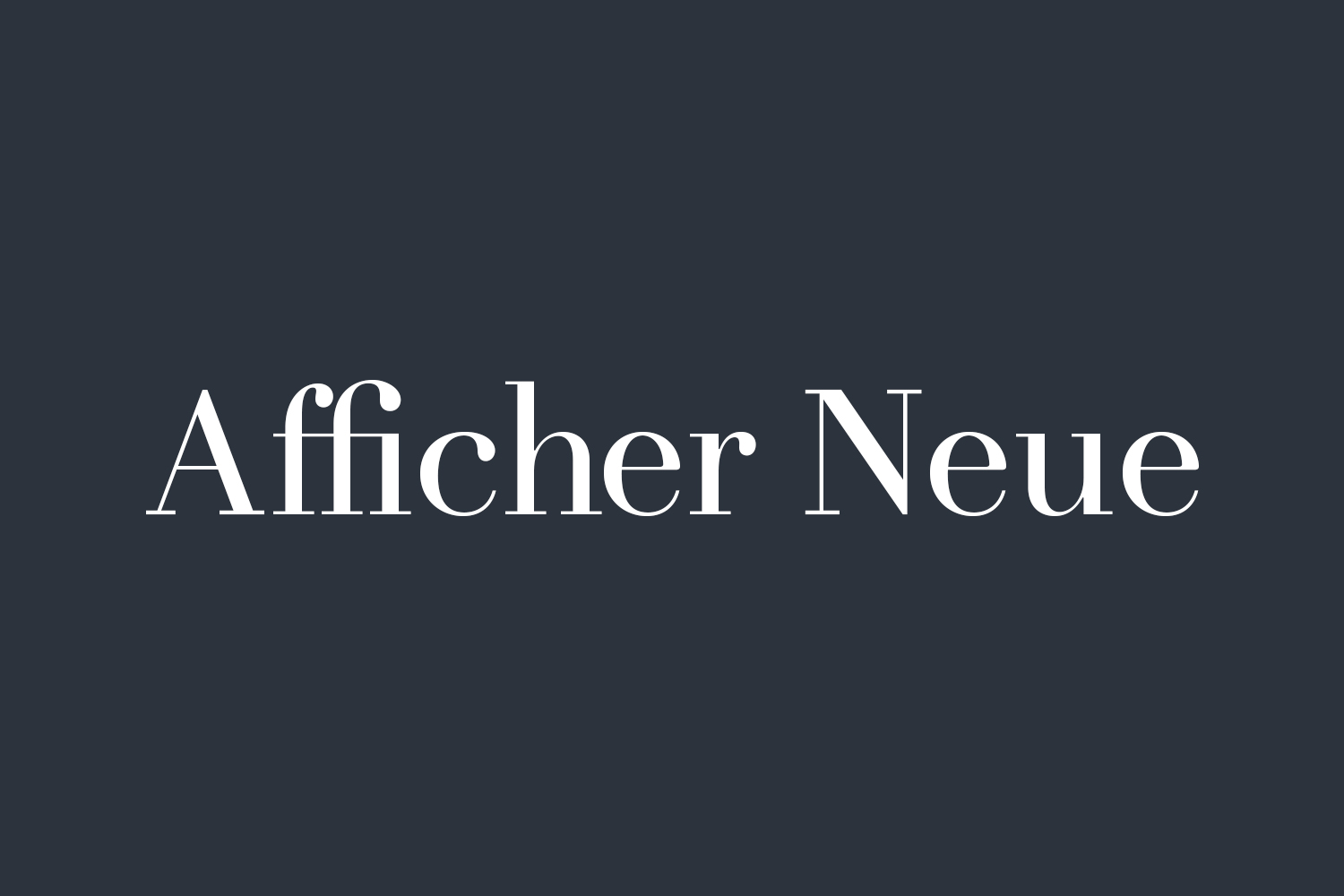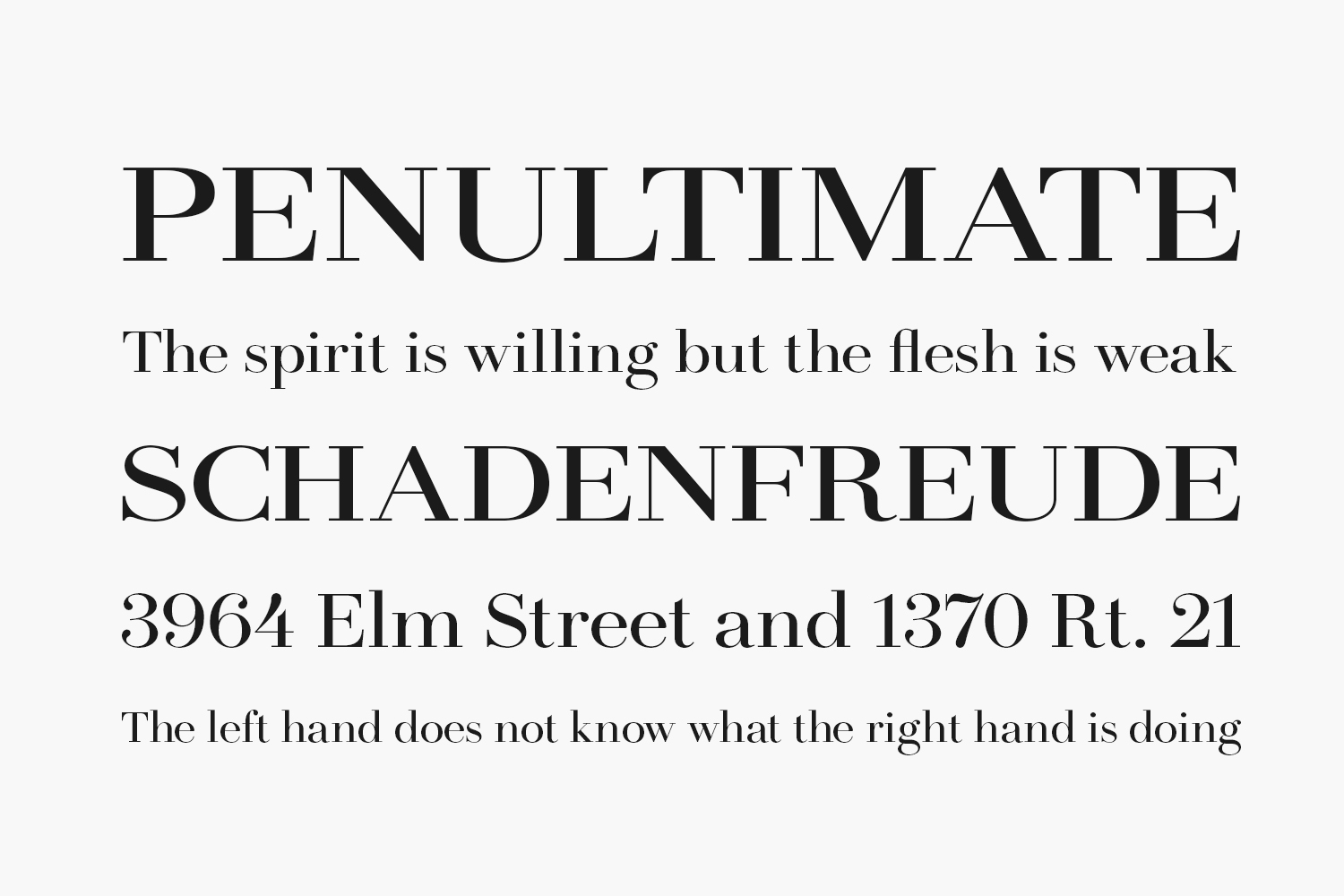
Afficher Neue Free Font Family
Presenting Afficher Neue Free Font Family, a serif typeface boasting a timeless style characterized by clean curves and lines. This font seamlessly combines the youthful allure of classic serif typography with the precision and fluidity of digital graphics, resulting in a harmonious blend of artistic expression and elegance. Skyline, the specific design within this family, is tailored for fashion projects, magazine headers, logos, and various other creative applications. Download the font for free if you need it for personal use or purchase the full version for commercial use.